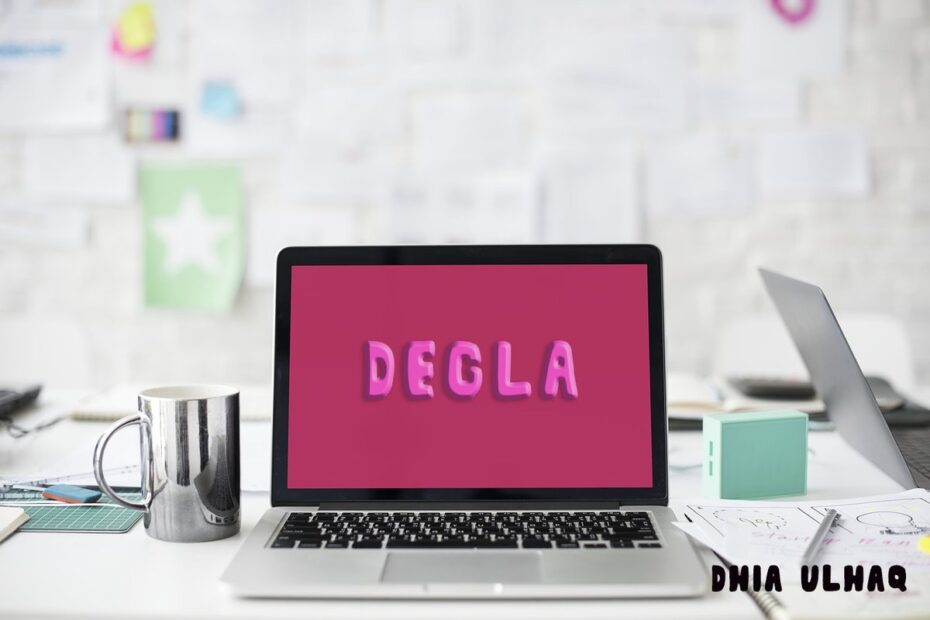
Unleashing Creativity with Degla Font
Have you ever found yourself staring at a blank canvas, waiting for inspiration to strike? You know, that moment when everything else fades away, and all you’re left with is the thrill of creating something new. For designers, this moment is what drives them to push boundaries and craft work that truly leaves an impression.
Enter Degla Font, a handcrafted display font designed to capture that essence of creativity. With its expressive nature, Degla Font is perfect for designers who want to make a lasting impact. Whether it’s a bold logo, a striking headline, or a whimsical typographic art piece, Degla Font is the perfect tool to bring your vision to life.
For designers, Degla Font is more than just a font – it’s a key to unlocking your creative potential. With its unique character and versatility, Degla Font can elevate even the most mundane designs into something truly remarkable. Whether you’re a seasoned pro or just starting out, Degla Font is an invaluable addition to any designer’s toolkit.
Degla Font Key Features
- Font Family: Degla Font is a sans-serif font family designed for use in digital interfaces.
- Character Count: The font family includes a wide range of characters, including Latin, Greek, and Cyrillic scripts, covering over 200 languages.
- Size: The font family is available in 4 different weights: Light, Regular, Medium, and Bold, allowing for varying levels of emphasis.
- Resolution: Designed for use at high resolutions, Degla Font is suitable for digital displays with high pixel density, such as Retina displays.
- Unique Characteristics: Degla Font features a clean, modern design with a focus on legibility and readability, making it an ideal choice for digital interfaces, including websites, mobile apps, and software.
Designer Review: Degla Font
As a designer, I’ve had the chance to experiment with the Degla Font, and I must say it’s been an interesting experience. Here are my thoughts.
- The Degla Font has a unique, handwritten feel that can add a touch of personality to any design.
- The font is highly customizable, with a wide range of weights and styles to choose from.
- The Degla Font is also highly legible, making it suitable for a variety of applications, from body text to headings.
- The Degla Font may not be suitable for formal or professional designs, as its handwritten feel can come across as unpolished.
- The font may require some additional styling or tweaking to ensure consistency across different platforms and devices.
- The Degla Font may not be the best choice for designs that require precise typography, as its handwritten nature can make it difficult to achieve precise control.
The Degla Font is a solid choice for designers looking to add a touch of personality to their designs. While it may have some limitations, its unique feel and high level of customization make it a great option for the right project. With some careful styling and tweaking, the Degla Font can be a real showstopper.
Tips for Getting the Most Out of Degla Font
Use Degla Font for creating bold, eye-catching headlines and titles. It’s ideal for use in modern and minimalist designs. To get the most out of Degla Font, use it in combination with other fonts that have a similar feel and style.
Degla Font is commonly used in:
- Modern and minimalist designs